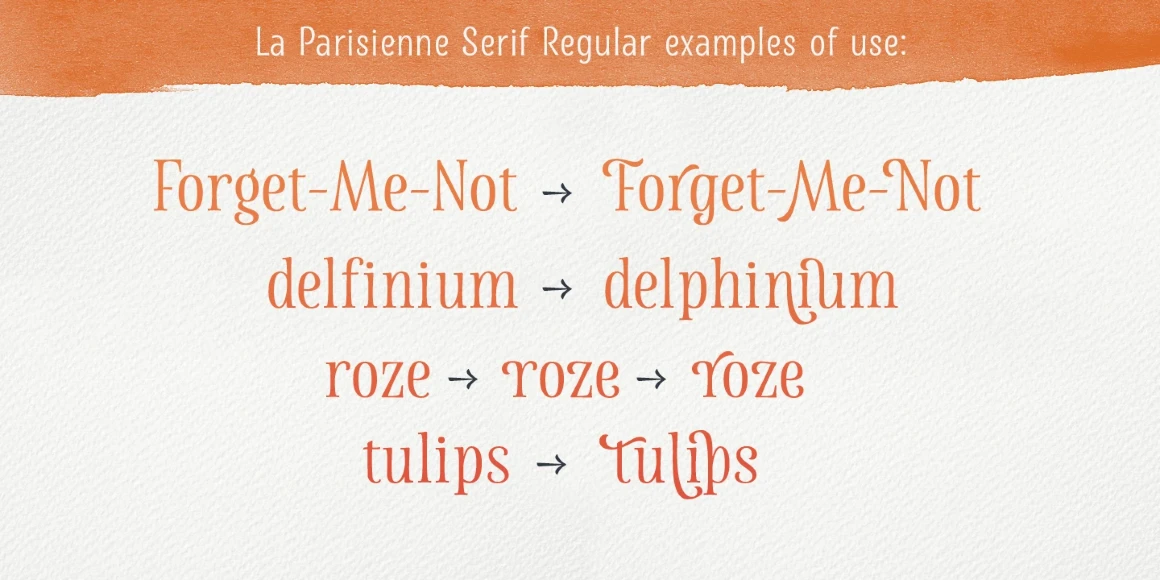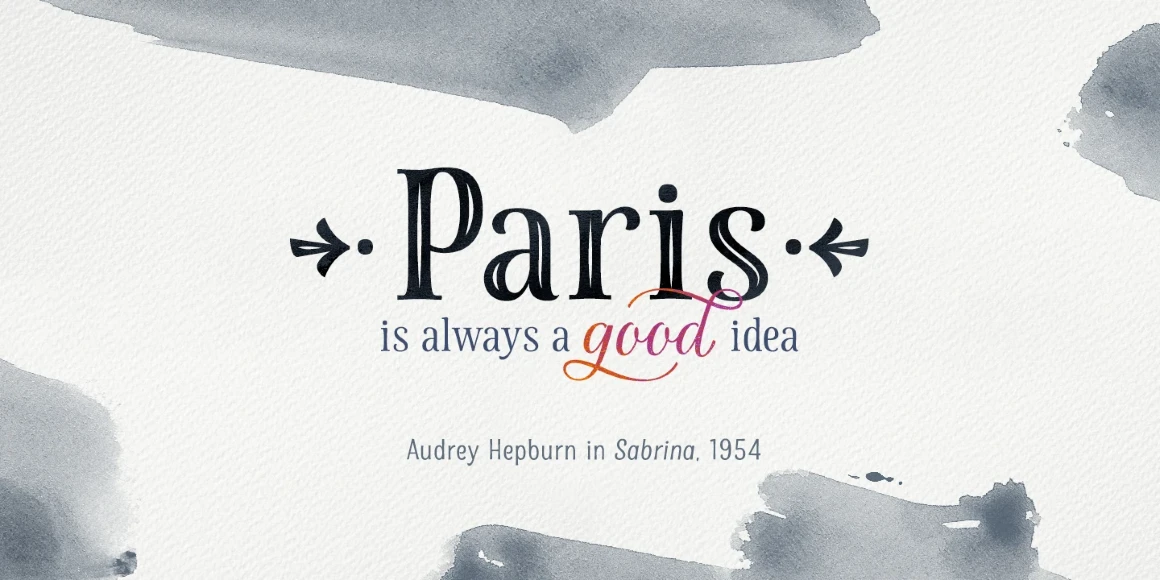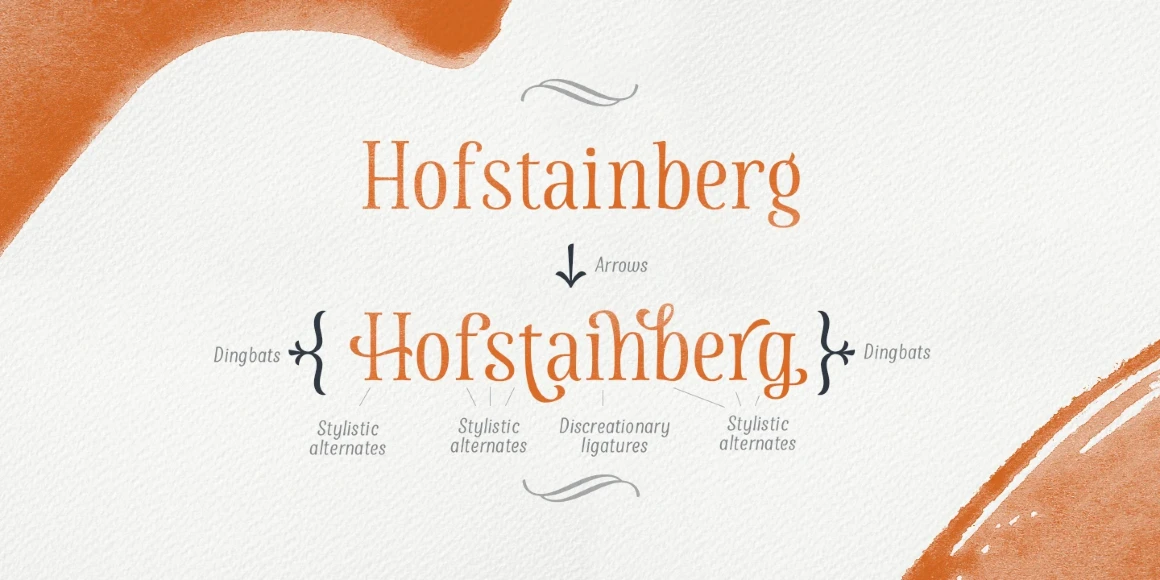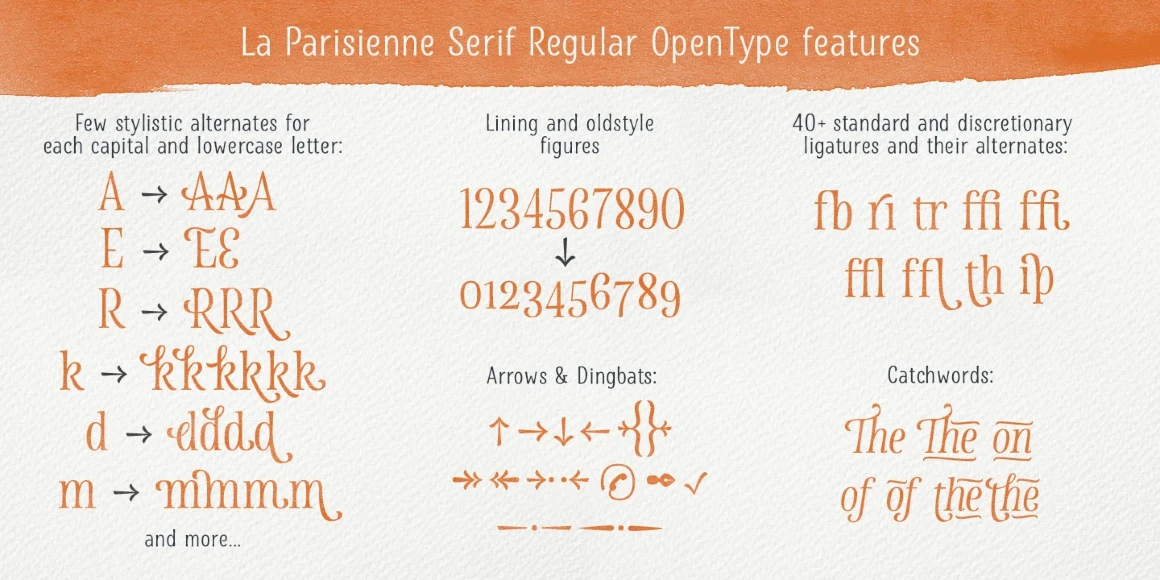
La Parisienne Serif
From My Creative Land
La Parisienne Serif is part of a collection of fonts inspired by the inimitable French charm found in the avenues and boulevards of Paris. The family mixes elegant hand-lettering (Script Casual) and classic type forms (Sans, Serif, Serif Inline). While each typeface has some structural similarities, allowing them to work well together, they are all unique enough to stand independently. La Parisienne Serif will add a touch of the extraordinary to your next project.
Designed by Elena Genova